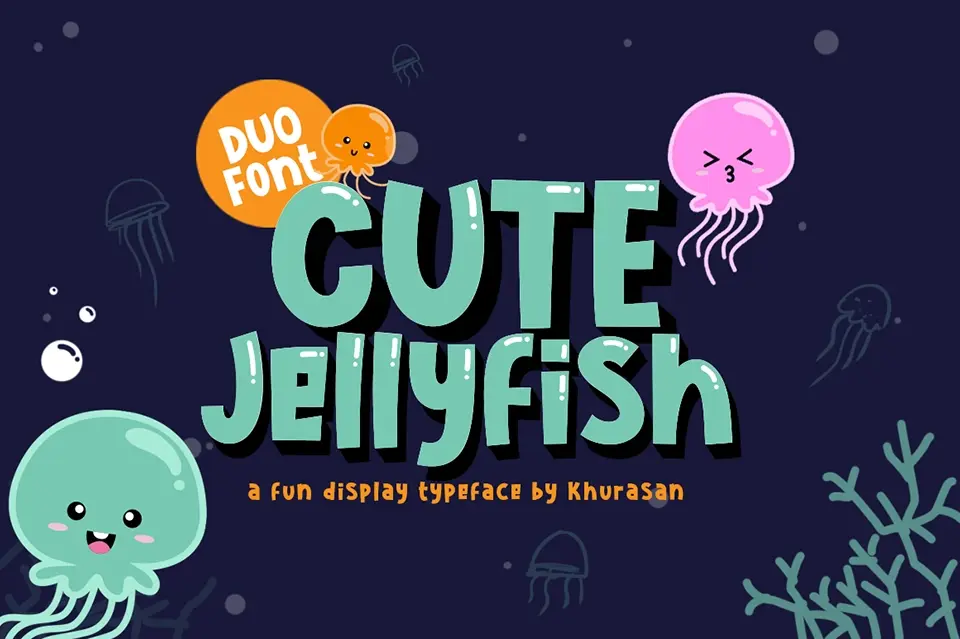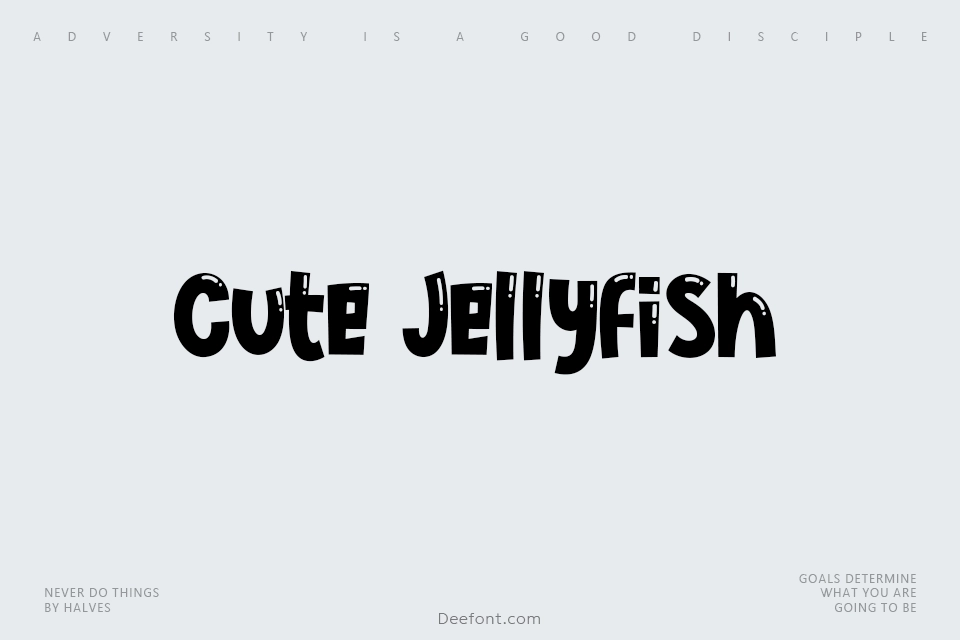
Cute Jellyfish Font
Cute Jellyfish is a playful, whimsical display font featuring soft, rounded letterforms with gentle curves that evoke the flowing movements of jellyfish. With bubbly, informal characters and a cartoonish aesthetic, this font brings a charming, approachable vibe to any design. Perfect for children’s books, invitations, posters, branding, and creative projects that demand personality and fun. The uppercase letters maintain an even, uniform appearance, making it ideal for titles, logotypes, and casual applications where personality and charm are essential.